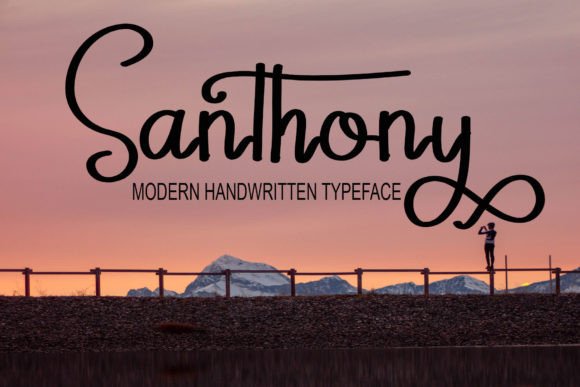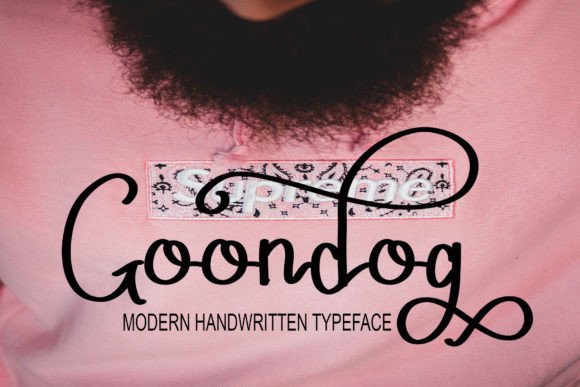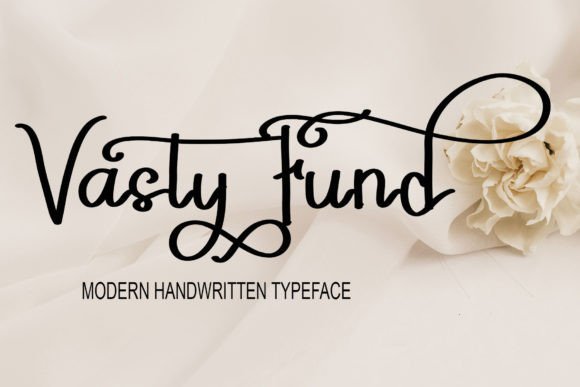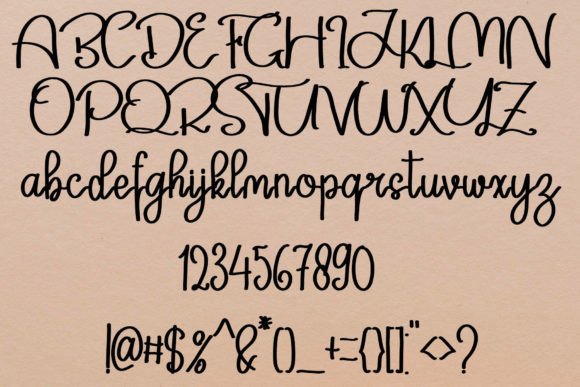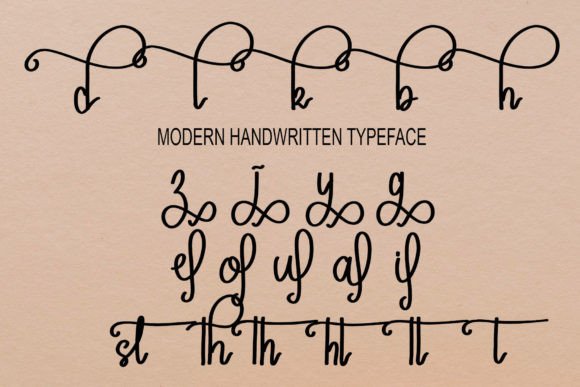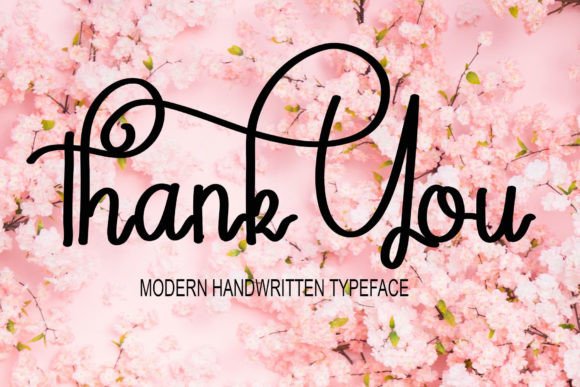
Introduction to Jugabus Font Font
Fonts play a crucial role in design, and the Jugabus Font font is a typeface that brings both character and versatility to any project. Whether you’re working on a branding project, a website, or a print design, the Jugabus Font font offers a unique style that can elevate your work.
Jugabus is a font written by hand using a tablet.
The font can also be used for websites, wedding invitations, business cards, signatures, and advertisements, be it product advertisements or other advertisements Even though it looks simple, this font still looks cool and stylish.
Key Features of Jugabus Font Font
Why Choose Jugabus Font Font?
The Jugabus Font font is more than just a typeface – it’s a design tool that helps you communicate your message with style and clarity. Its unique character set and versatile design make it suitable for a wide range of applications, from elegant invitations to bold headlines.
With its carefully crafted letterforms and balanced proportions, the Jugabus Font font ensures readability and visual appeal across all mediums.
What makes Jugabus Font font special?
The Jugabus Font font stands out with its unique design, exceptional readability, and versatility across various design applications.